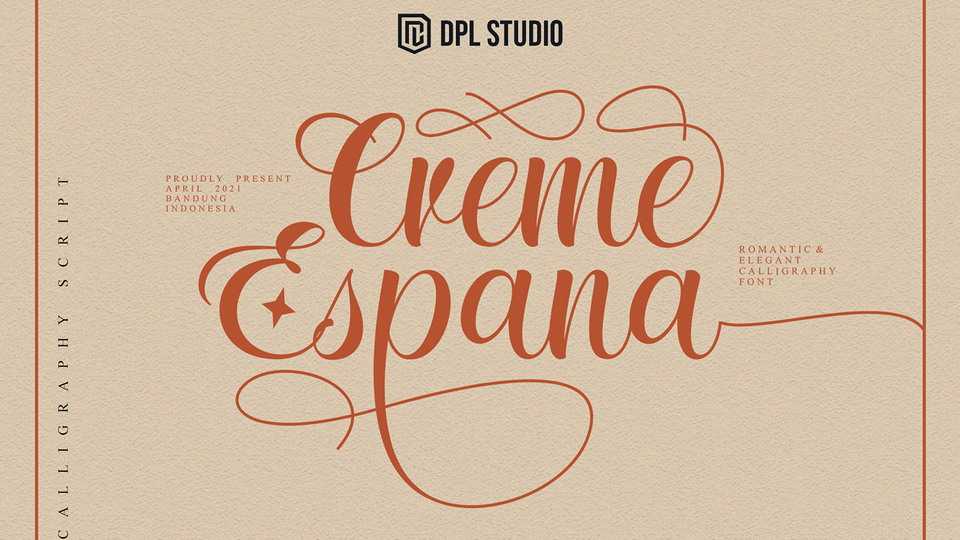
Download Creme Espana font, an elegant modern calligraphy script typeface with a romantic vibe. Creme Espana is ideal for wedding decoration, logo, branding and and editorial design.
Designer: DPL Studio